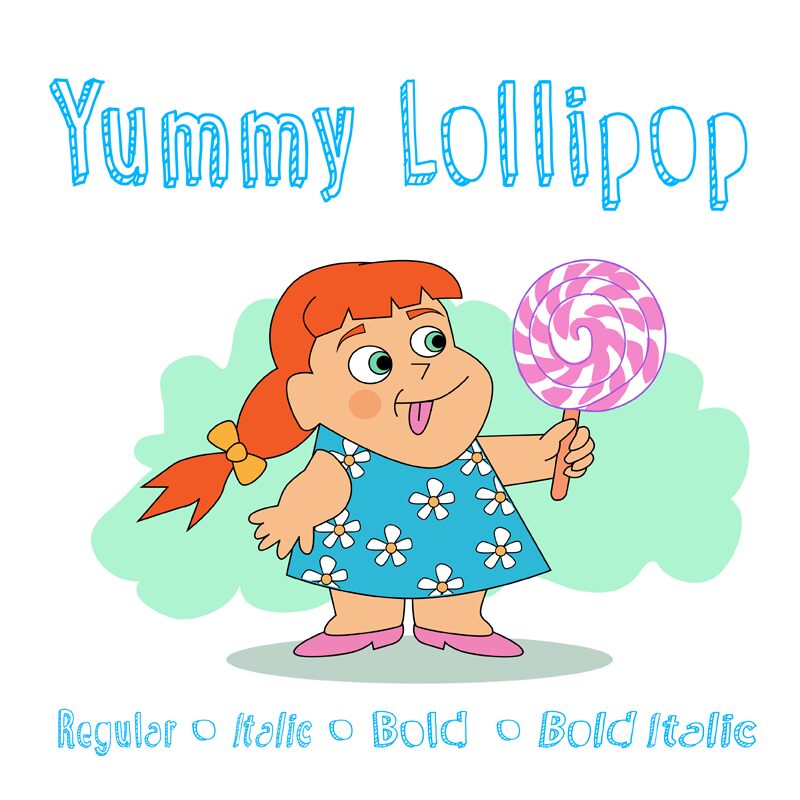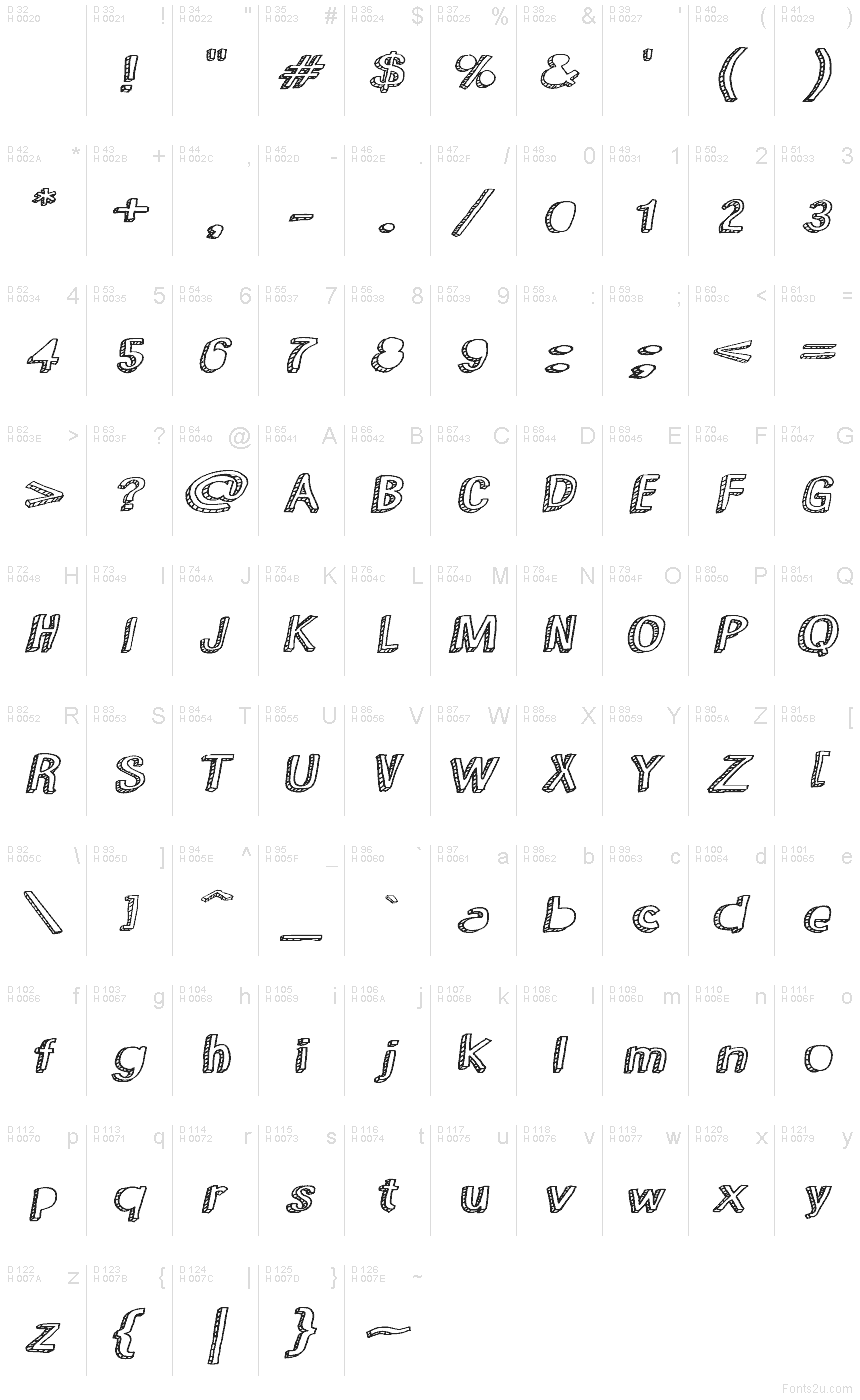
Yummy Lollipop Bold Italic
Yummy Lollipop Bold Italic font by Galdino Otten Fonts is a free cartoon display typeface that looks like it’s been piped out of sugary icing. The letters tilt with a playful swing, outlined in chunky strokes filled with striped, candy-like texture that feels hand-drawn and a little wobbly in the best way. It has a bold, bouncy rhythm that instantly says “fun,” even at a quick glance.
Using Yummy Lollipop Bold Italic, you can bring a sweet, animated energy to kids’ party invitations, candy or bakery packaging, playful logos, YouTube thumbnails, game titles, and classroom posters. This free font works best at larger sizes where its patterned interiors can really pop. For supporting text, pair it with a clean rounded sans serif and let Yummy Lollipop handle the loud, happy headlines.